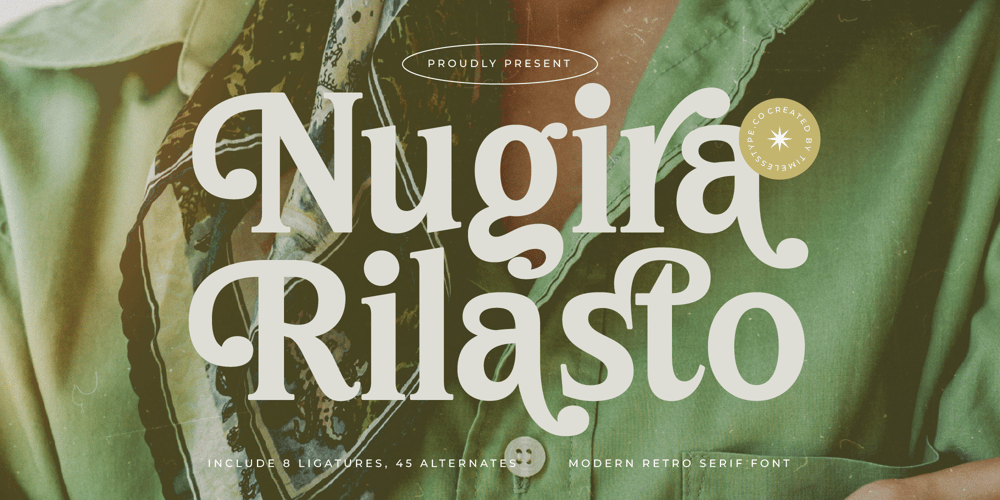
Nugira Rilasto
Nugira Rilasto font
Nugira Rilasto Font Family was designed by Heru Utama Putra and published by Timelesstype Studio. Nugira Rilasto contains 2 styles and family package options. Nugira Rilasto – Modern Retro Serif Font , from Timelesstype , Suitable for any projects such as: logos, branding projects, homeware designs, product packaging, mugs, quotes, posters, shopping bags, t-shirts, book covers, name card, invitation cards, greeting cards, label, photography, watermark, special events, and all your other luxury and beautiful projects that need a Luxury Serif taste.